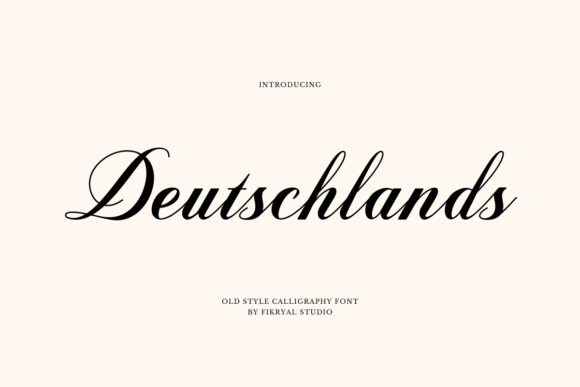
Introducing Deutschlands Font, the ultimate script font that will elevate your design to new heights! Created by Fikryal Studio, this Old Style Calligraphy font is a modern masterpiece that effortlessly blends elegance and casualness.
Searching for the perfect font for your wedding album? Look no further! Deutschlands Font is the best choice for creating stunning and memorable wedding designs. Its graceful curves and delicate strokes will add a touch of romance to your project, making it truly unforgettable.
But Deutschlands Font isn't just limited to wedding albums. Its versatility knows no bounds! You can use it for logos, branding, titles, social media posts, advertisements, product packaging, and so much more. Let your creativity run wild and watch as this font brings your ideas to life.
Imagine the impact Deutschlands Font will have on your photography. Whether you're watermarking your images or designing labels for your products, this font will make your visuals pop. Its timeless charm and unique character will captivate your audience and leave a lasting impression.
Are you a magazine publisher or a web designer? Deutschlands Font is the perfect choice for you too! Its legibility and sophisticated style will make your content stand out from the crowd. With this font, your layouts will exude professionalism and elegance, setting you apart as a true trendsetter.